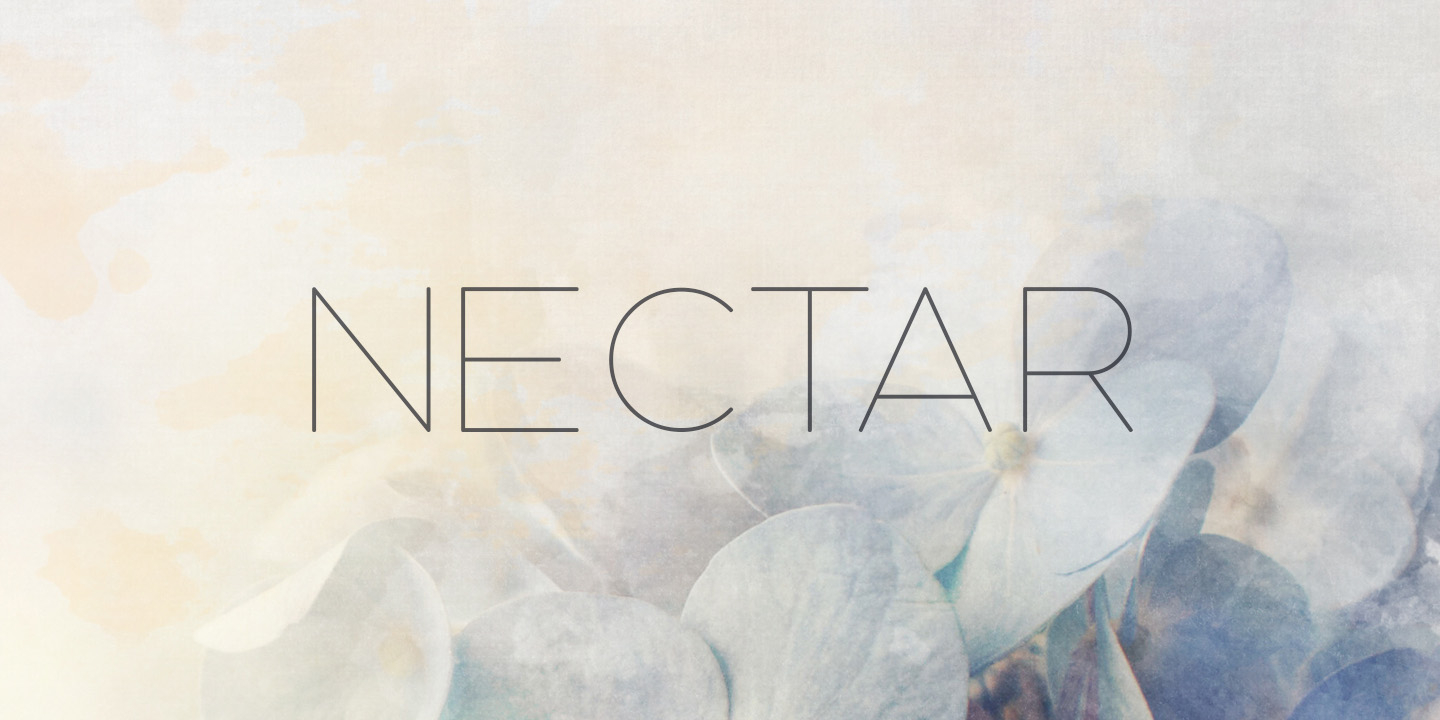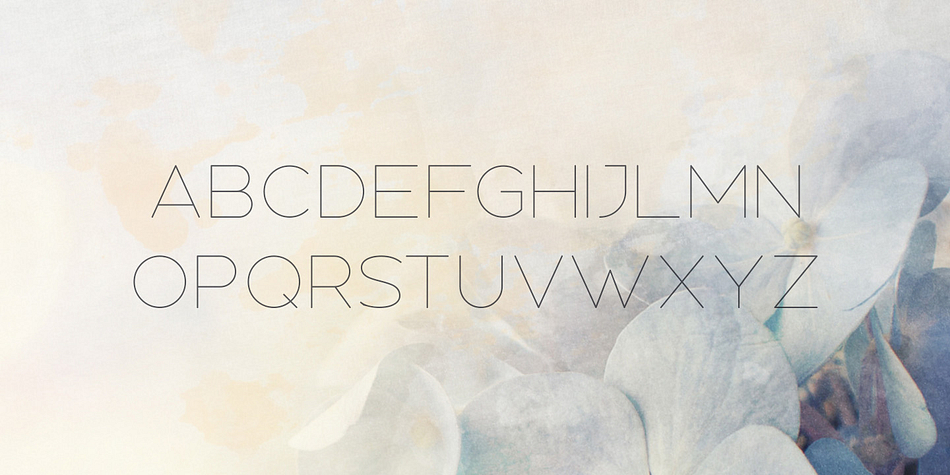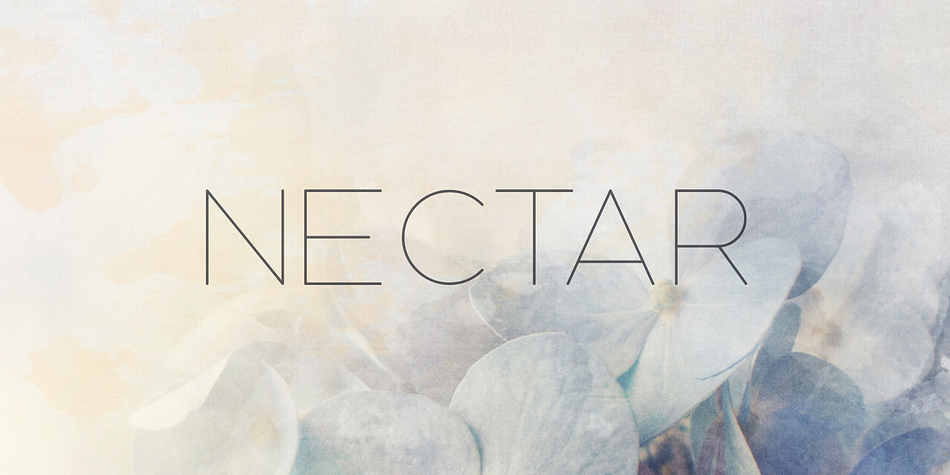
Nectar is a display sans font family. This typeface has two styles and was published by Tugcu Design Co.
Nectar is a thin and wide sans serif display font that’s great for chic titles, elegant invitations and classy logos.